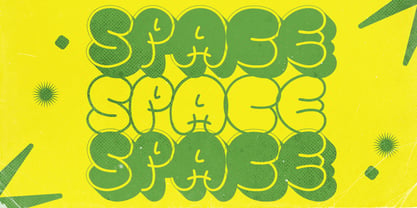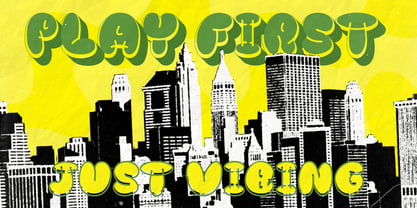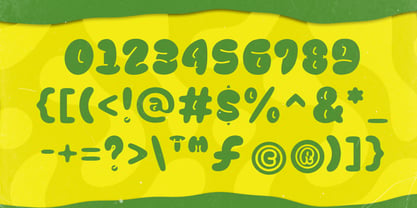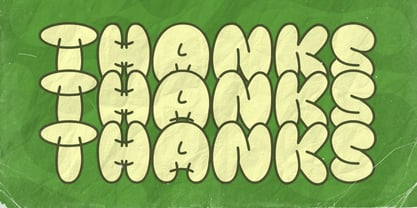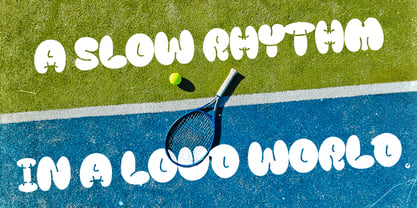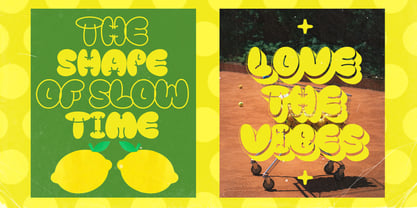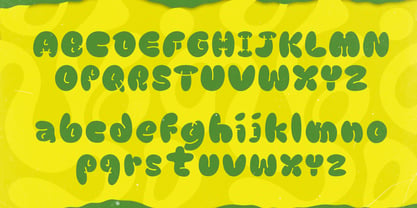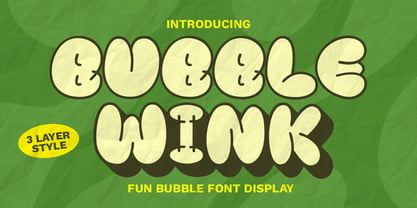
Bubble Wink
Die Schriftfamilie Bubble Wink wurde von Arya Zebua entworfen und von Stubborn Type veröffentlicht. Bubble Wink enthält 3 Stile und Familienpaketoptionen. Mehr über diese Familie
Bubble Wink is a playful bubble display font designed to bring instant joy, warmth, and personality into your visuals. Built with soft rounded shapes and an expressive cartoon-like rhythm, this font feels friendly, bold, and full of character perfect for designs that don’t want to stay quiet. Its chunky letterforms and organic curves give Bubble Wink a hand crafted feel, while the layered style adds depth without sacrificing clarity. The font works beautifully for posters, kids-related projects, branding, packaging, social media graphics, stickers, and cheerful headlines that need to stand out at first glance. Bubble Wink isn’t about perfection or rigid structure it’s about movement, fun, and visual smiles. Every letter feels alive, slightly imperfect, and intentionally playful, making it ideal for projects that aim to feel human, joyful, and approachable.